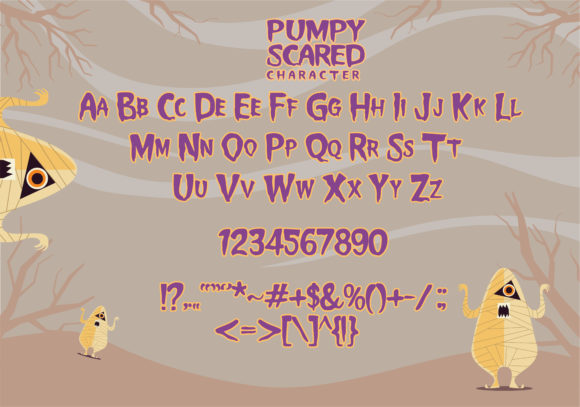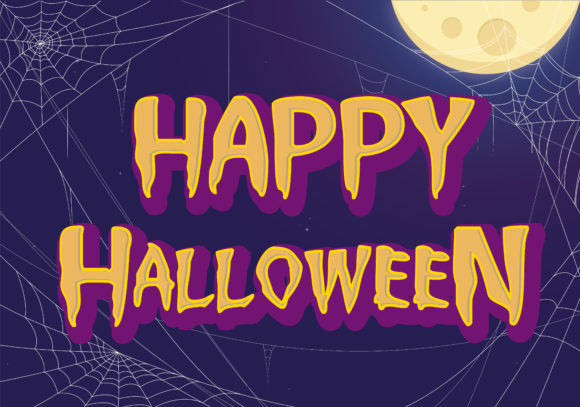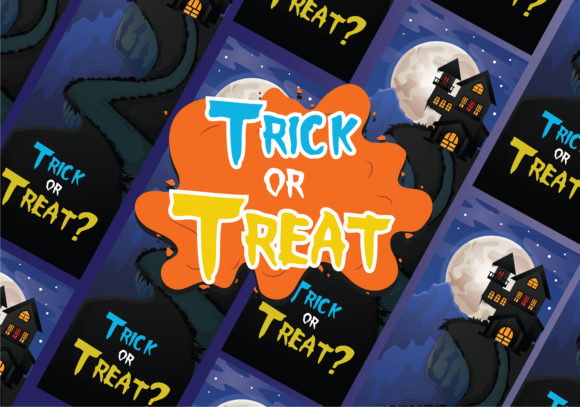
Introduction to Pumpy Scared Font
As a designer, you’ve probably found yourself stuck in the middle of a creative project, searching for that perfect font to bring your idea to life. I’m sure we’ve all been there – scrolling through endless options, only to find that one special font that makes everything click into place. For me, that moment came when I stumbled upon the Pumpy Scared Font. Its thick letters and spooky vibe immediately transported me to a world of Halloween-themed crafts and decorations.
What makes Pumpy Scared Font truly valuable is its versatility. With its transparent background and high-quality design, it’s the perfect addition to any creative project. Whether you’re working on a design for a spooky website or a crafty Halloween card, this font is sure to elevate your design to the next level. And the best part? It’s available for free download, making it an invaluable resource for designers of all levels.
So, what are you waiting for? Dive into the world of Pumpy Scared Font and discover the endless possibilities it has to offer. With its unique design and high-quality features, this font is sure to become a staple in your design resource library.
Key Features of Pumpy Scared Font
- Unique, hand-drawn design with a playful and creative vibe, ideal for a wide range of design projects.
- Features a transparent background, allowing for seamless integration with any design element or color scheme.
- Perfect for designers working on creative projects, such as children’s books, advertisements, or digital art, where a fun and playful font is needed.
- Designed to be versatile and adaptable, suitable for both digital and print projects, including web design, social media graphics, and more.
Honest Review: Pumpy Scared Font
I recently stumbled upon the Pumpy Scared Font while searching for a unique design resource for a creative project. I was excited to give it a try and see how it would fit into my design.
The font itself is quite eye-catching and has a lot of character. It’s perfect for adding a touch of whimsy to your design. ✨ I particularly like the bold lines and irregular shapes that give it a hand-drawn feel. It’s great for adding a personal touch to your work.
One of the standout features of the Pumpy Scared Font is its transparent background, making it easy to overlay on top of other design elements. ✨ This is a big plus for designers who need to create complex compositions.
However, I did find a few limitations with this font. ⚠️ The font is quite irregular, which can make it difficult to use for large blocks of text. Additionally, the font is not as high-quality as some other fonts I’ve used in the past.
- Pros:
- Unique and eye-catching design
- Perfect for adding a personal touch to your work
- Transparent background for easy composition
- Cons:
- Irregular shape can make it difficult to use for large blocks of text
- Not as high-quality as some other fonts
Overall, I think the Pumpy Scared Font is a great choice for designers who are looking for a unique and creative font for their next project. Just be aware of its limitations and use it accordingly.
Pumpy Scared Font is a unique and eye-catching design resource ideal for creative projects. With its high-quality design, it’s perfect for adding a touch of personality to your work.
To get the most out of Pumpy Scared Font, use it with a transparent background to create a stunning visual effect. Experiment with different font sizes and colors to add depth to your design.
Pumpy Scared Font is perfect for:
- Graphic design projects
- Marketing materials
- Branding and logo design
- Printable art and invitations
Additional Tips
Remember to adjust the font size and spacing to ensure readability. You can also use Pumpy Scared Font with other design elements to create a cohesive look.
Q: Does the Pumpy Scared Font have a transparent background?
Yes, the Pumpy Scared Font comes with a transparent background, making it easy to use on any background or design. You can also customize the background color to match your design project.